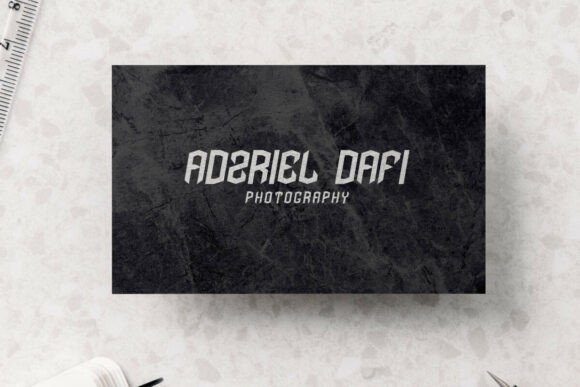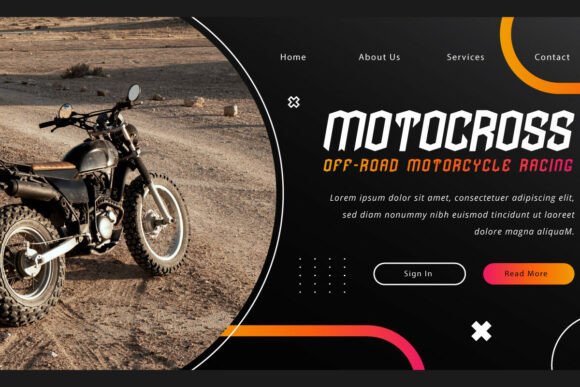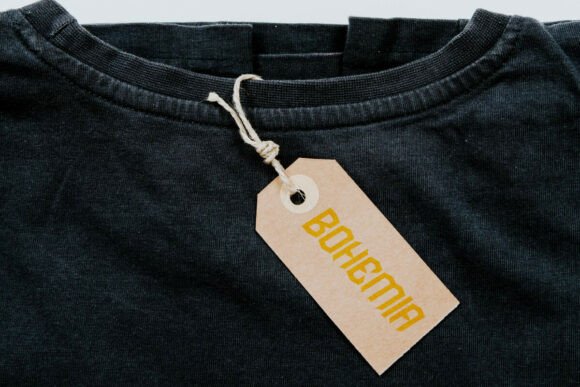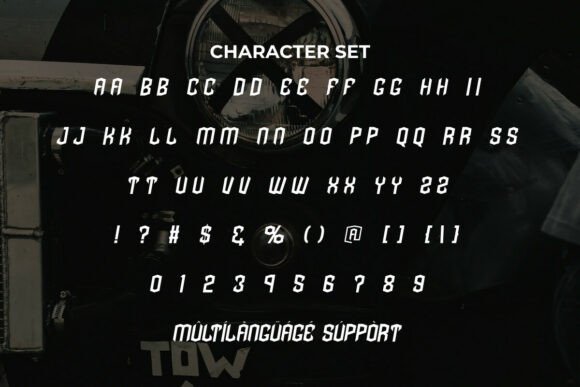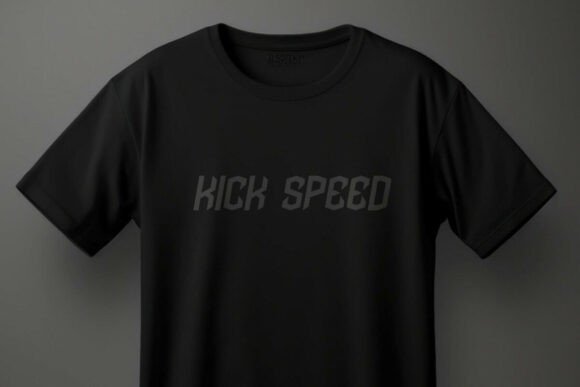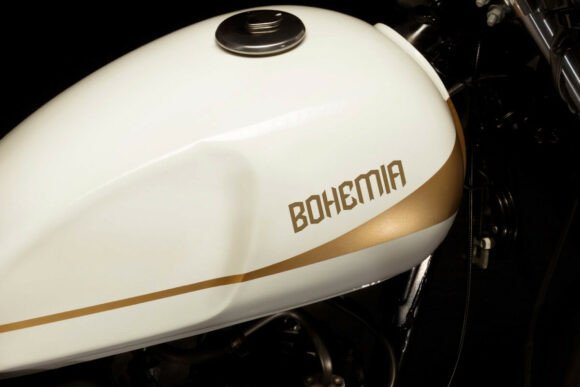
Introduction to Kickspeed Font
Kick Speed Font is a bold, racing-inspired display typeface infused with retro energy and sporty attitude.
Its sharp, angular letterforms are shaped with hexagonal edges and strong lines that echo vintage motorsport aestheticsโgiving it a distinctive, aggressive look Perfect for dynamic projects related to speed, strength, and masculinity, Kick Speed stands out in blog titles, branding, brochures, business cards, covers, labels, posters, fabric prints, stickers, and more.
Key Features of Kickspeed Font